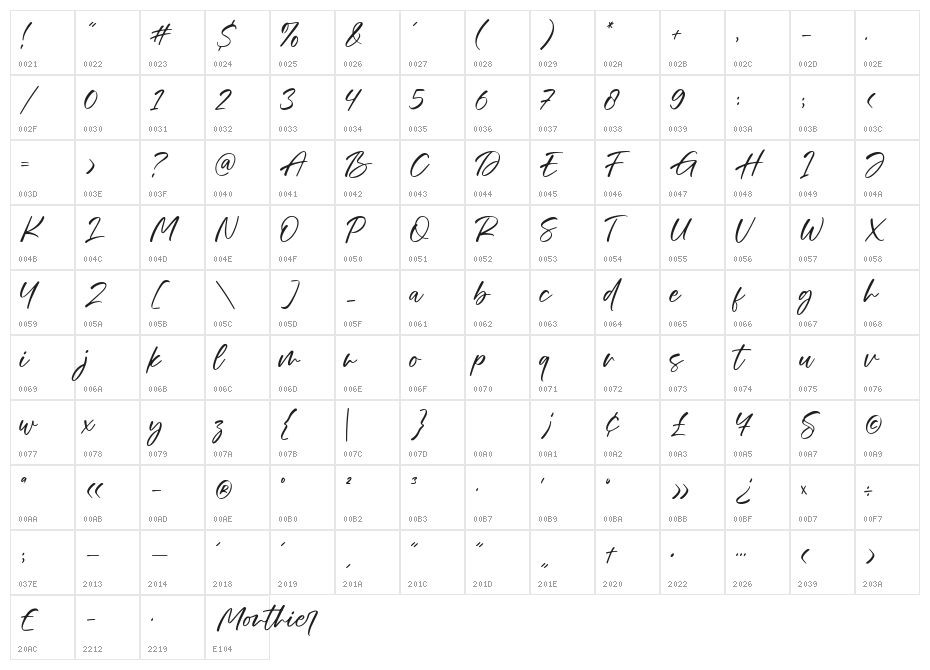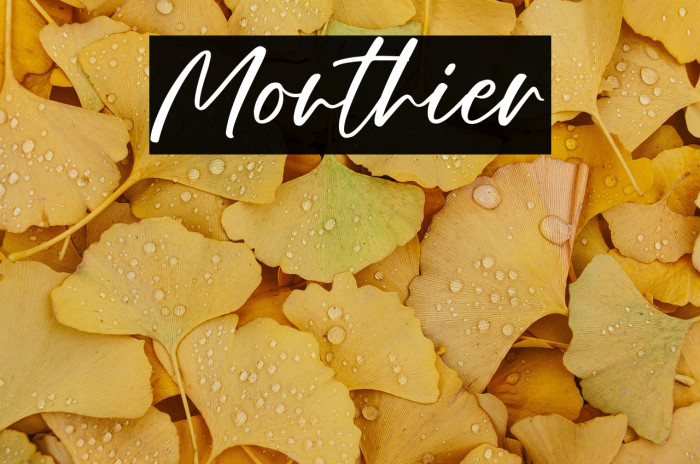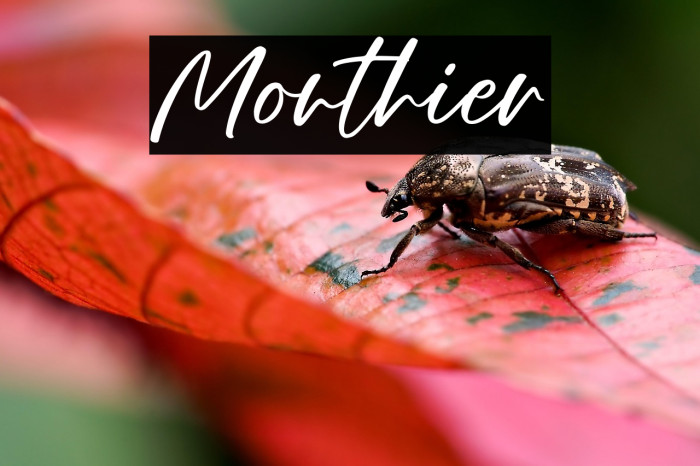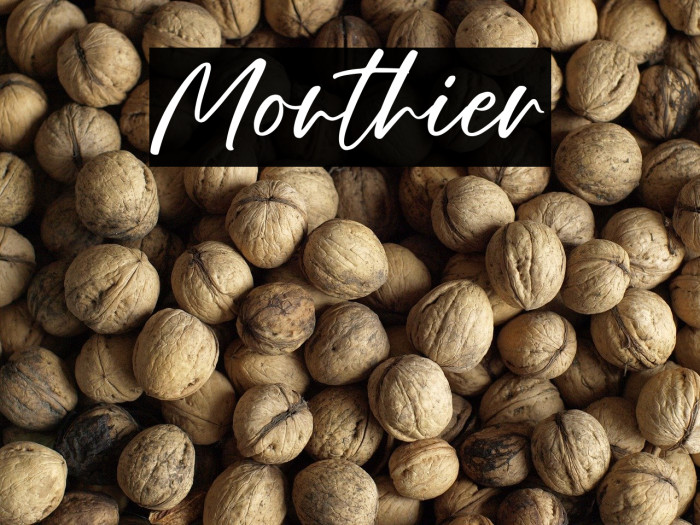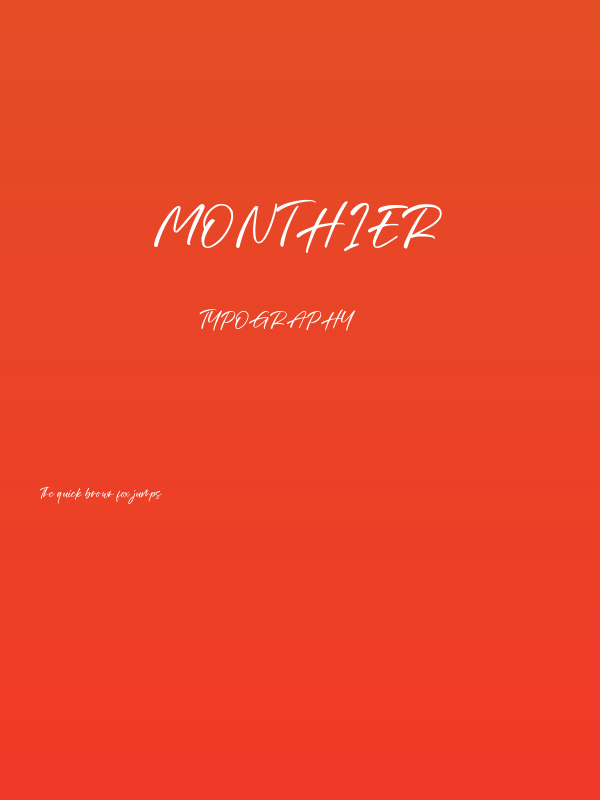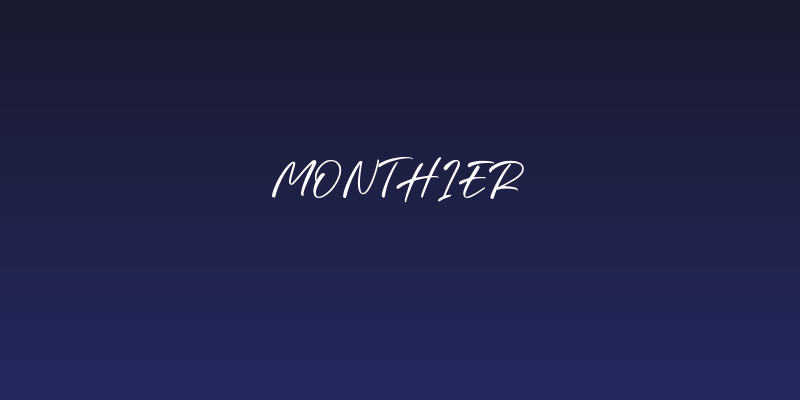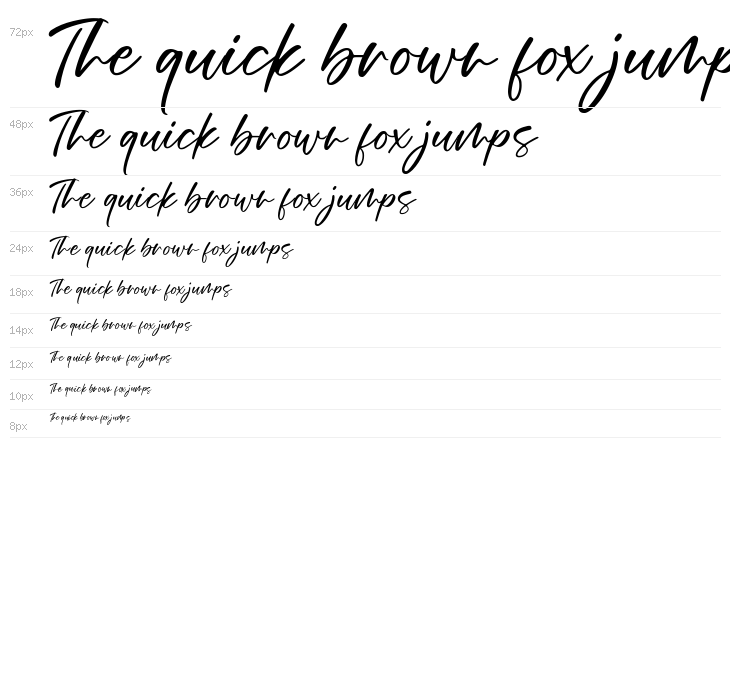
Monthier Font
Monthier Description
This font features a flowing, cursive style with a modern touch. The characters are elegantly connected, giving it a handwritten feel. The uppercase letters are bold and slightly slanted, while the lowercase letters maintain a consistent flow with smooth curves. Numbers and special characters complement the overall design, maintaining the same fluidity and style. The font's aesthetic is both sophisticated and approachable, making it suitable for a variety of creative projects.
| Proposed Projects | Ideal for wedding invitations, greeting cards, branding projects, and social media graphics. |